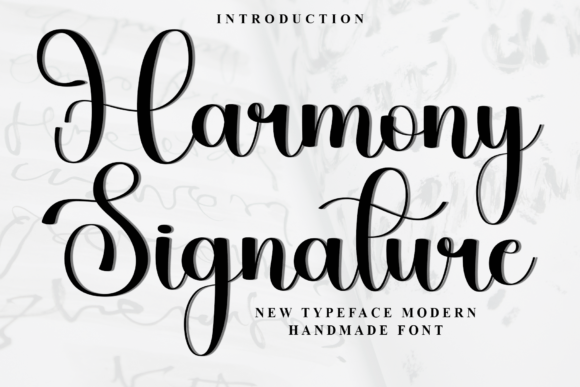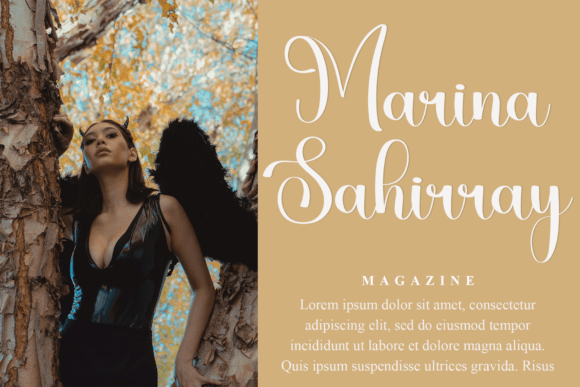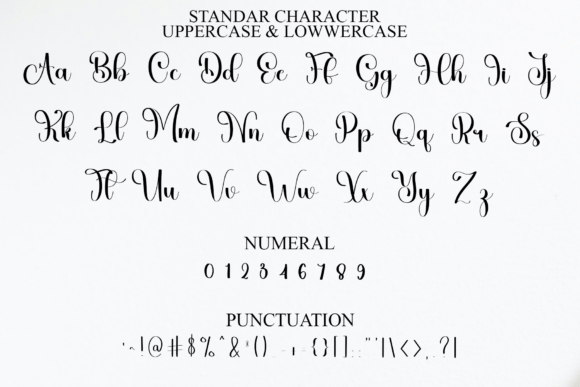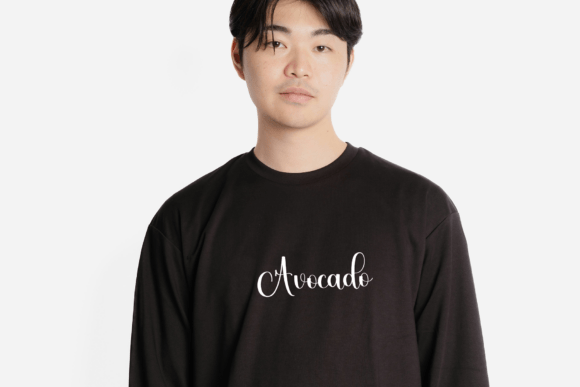
Harmony Signature Font
About the Harmony Signature Font
Crafted with precision, the Harmony Signature Font is ready to bring your ideas to life. Harmony Signature is a casual and creative font that exudes warmth and friendliness. Its round, playful strokes create a relaxed and approachable feel, perfect for personal projects, invitations, and social media graphics. The font’s charming, hand-drawn aesthetic adds a fun and unique touch to any design.
Harmony Signature thrives in applications requiring a friendly and approachable aesthetic. Ideal uses include short headlines, logos for artisan businesses, wedding invitations, and social media posts. Its casual nature makes it less suitable for body text or UI elements where readability is paramount. Avoid using it for lengthy paragraphs or dense information.
To complement its playful energy, pair Harmony Signature with a clean sans-serif like Lato for body copy or a more structured serif such as Playfair Display for a sophisticated contrast. For a more whimsical feel, consider pairing it with a delicate script font.
The font’s core personality is undeniably cheerful and approachable, making it a perfect choice for brands focused on warmth and creativity. Avoid using it where a more formal or authoritative tone is required.
Harmony Signature Font Example